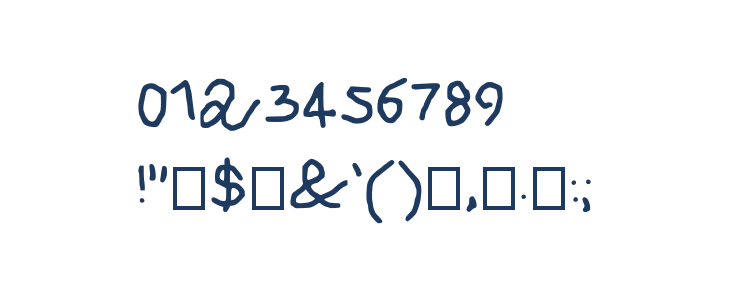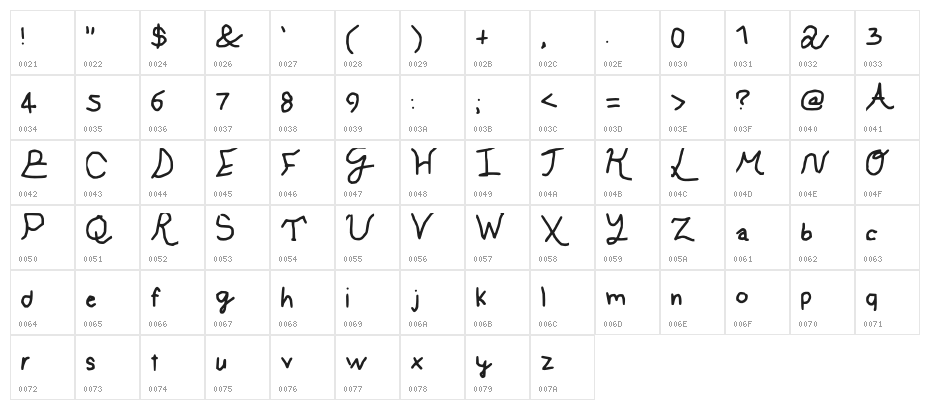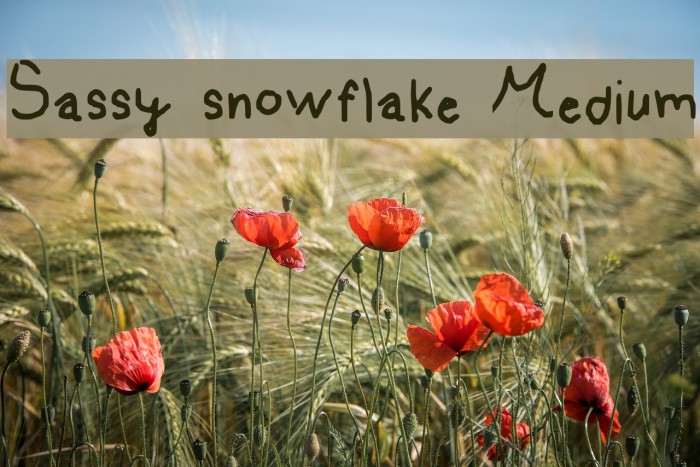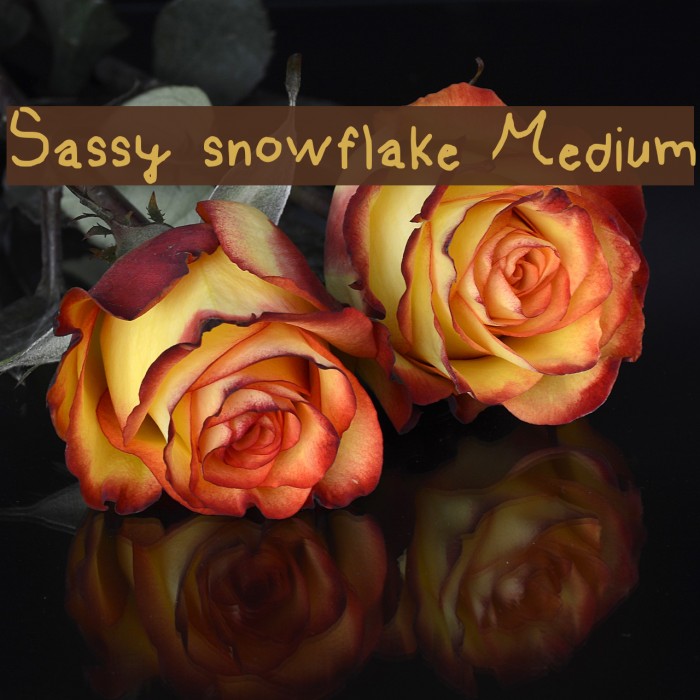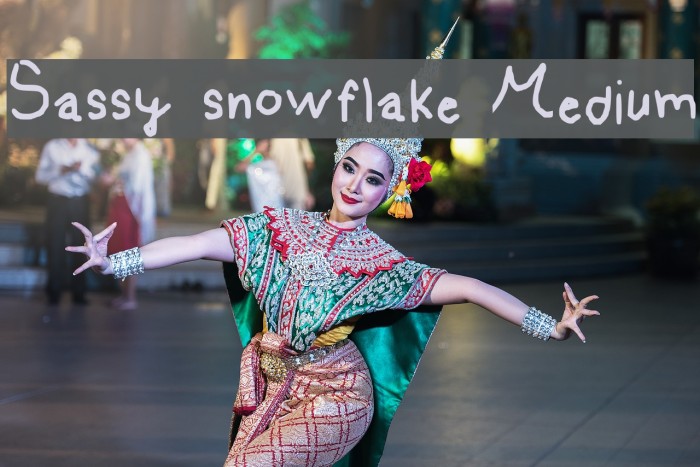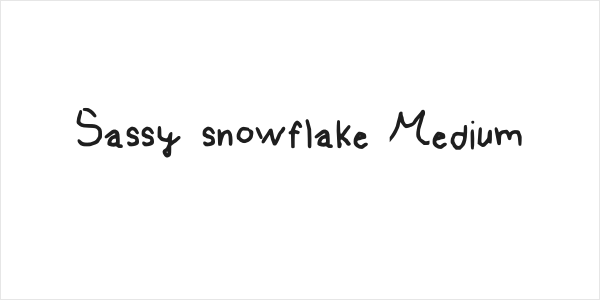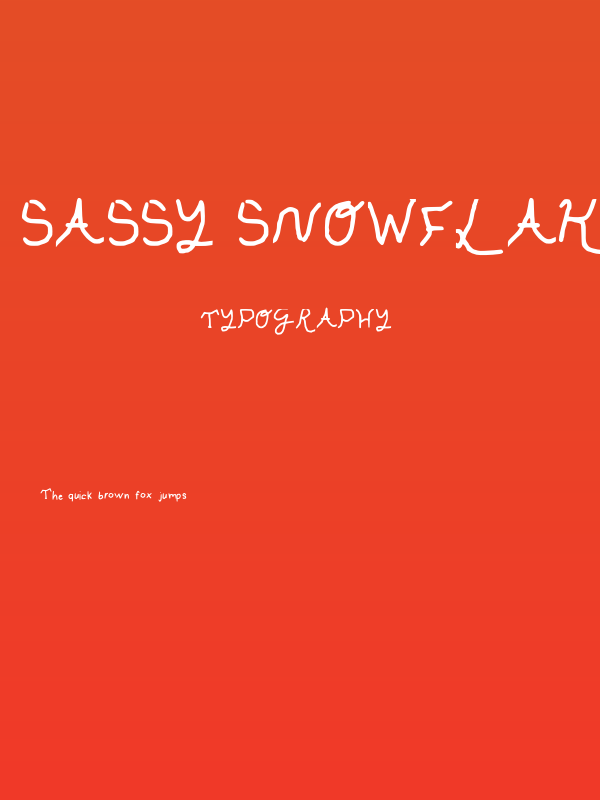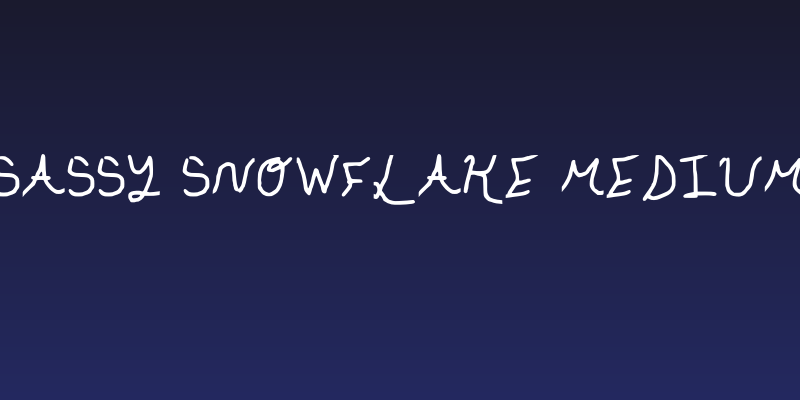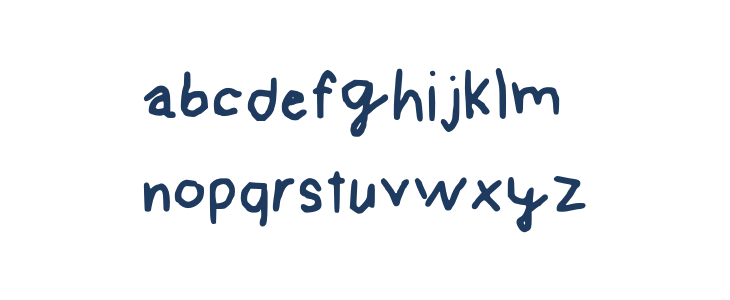
Sassy snowflake Medium Font
Sassy snowflake Medium Description
This font features a playful and whimsical style, characterized by its hand-drawn appearance. The letters have an irregular, slightly wavy form, adding a sense of movement and spontaneity. Uppercase letters are bold and distinct, while lowercase letters maintain a consistent flow with rounded edges. The numerals are quirky and match the overall playful theme. Special characters are creatively designed, fitting seamlessly with the rest of the font. This font exudes a casual and friendly vibe, making it suitable for informal and creative projects.